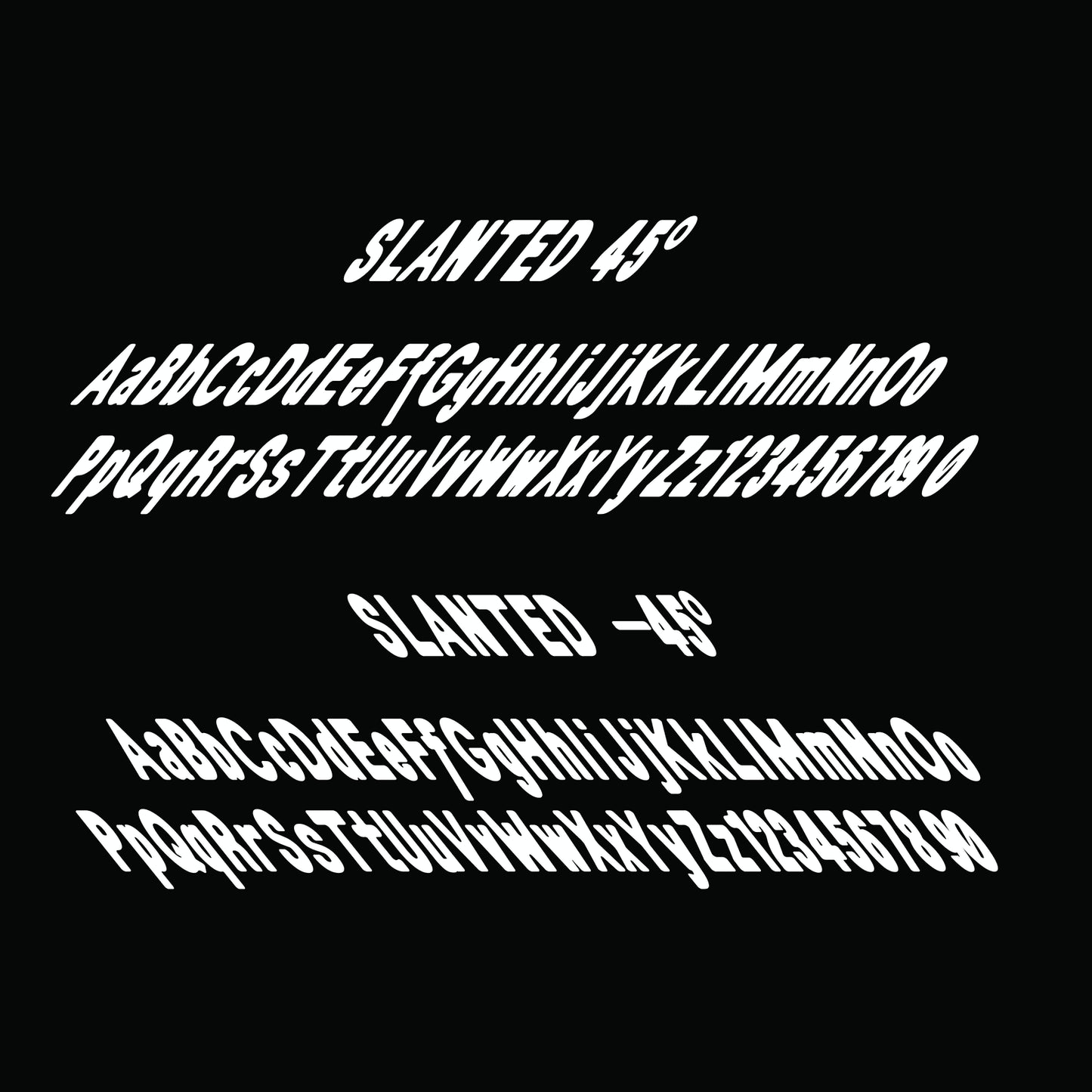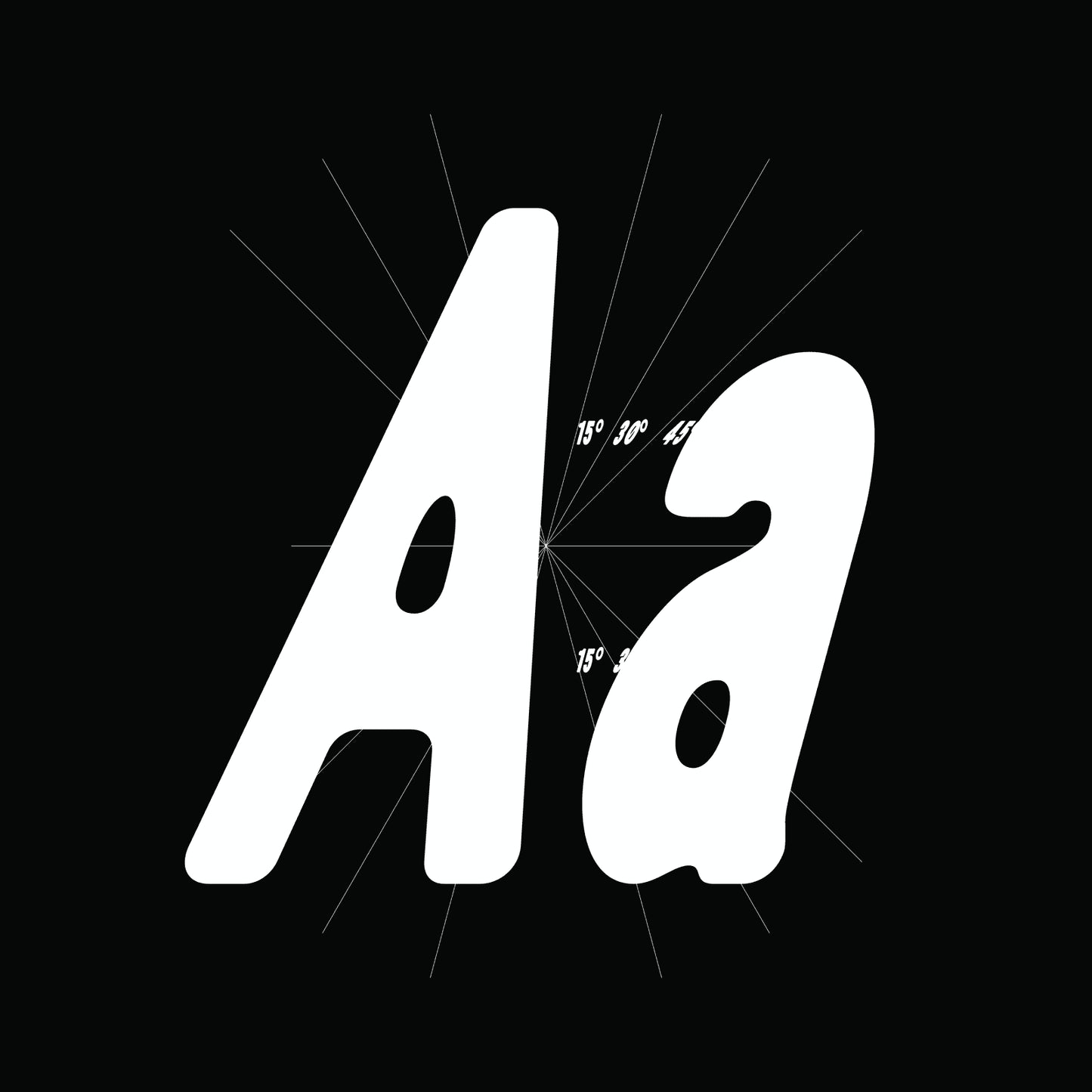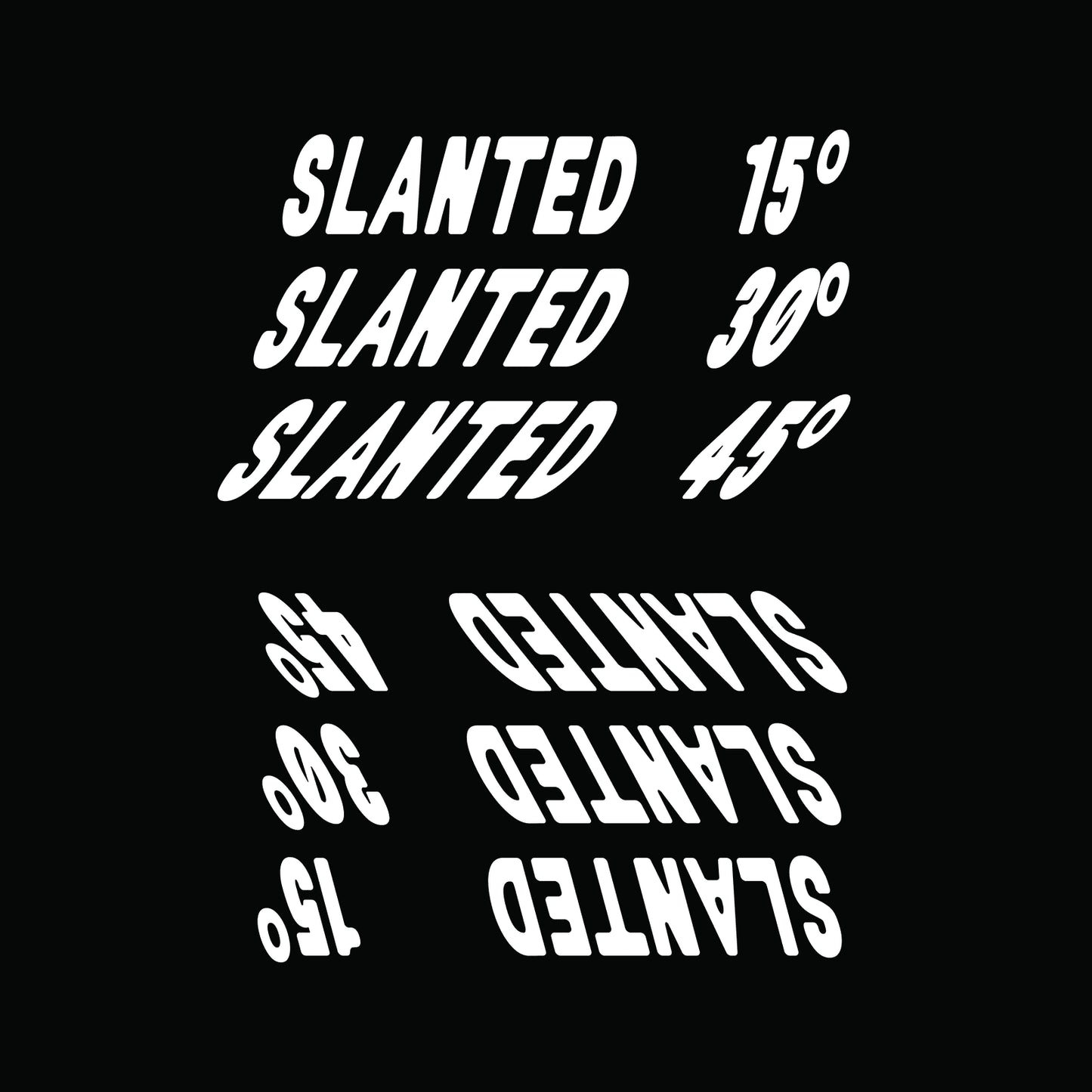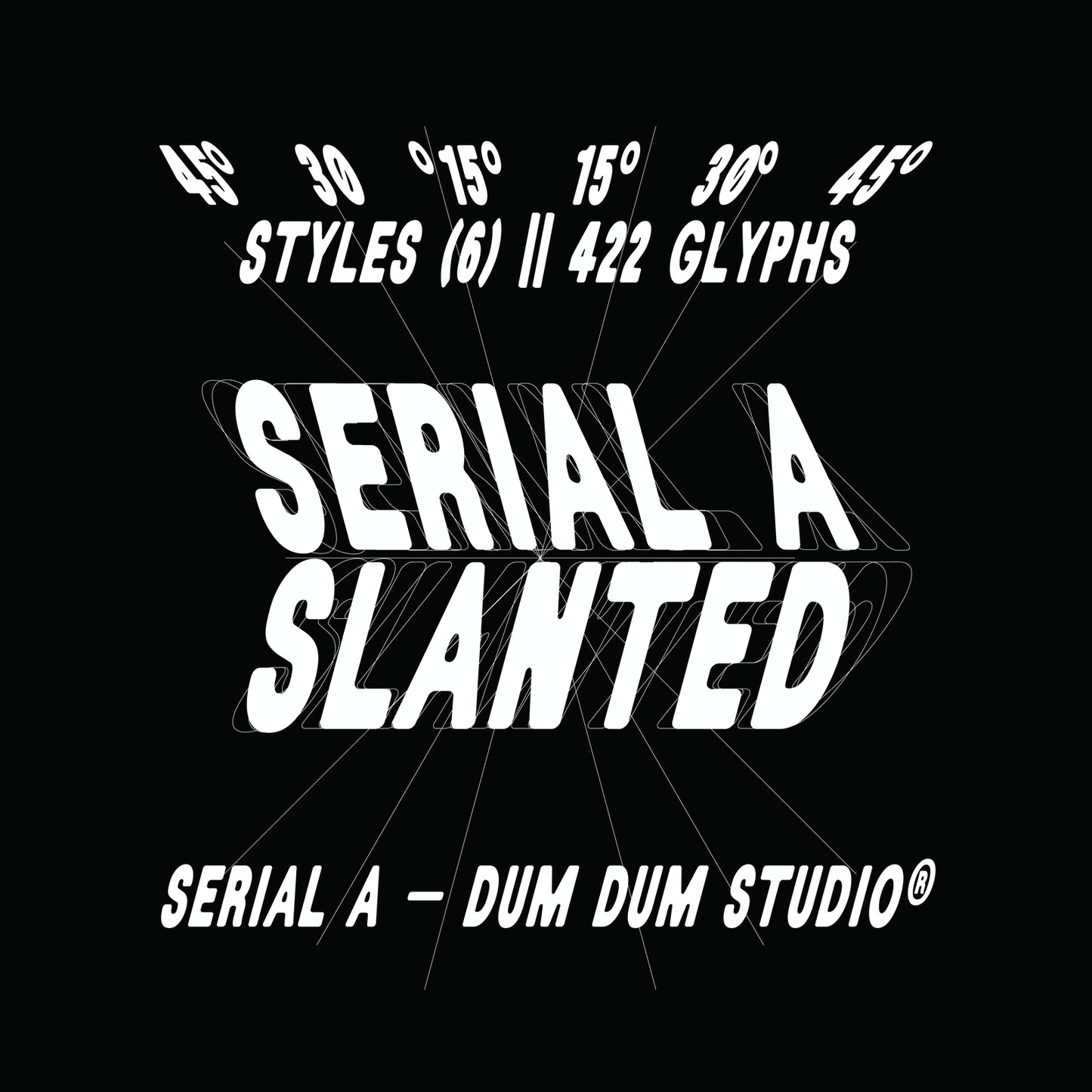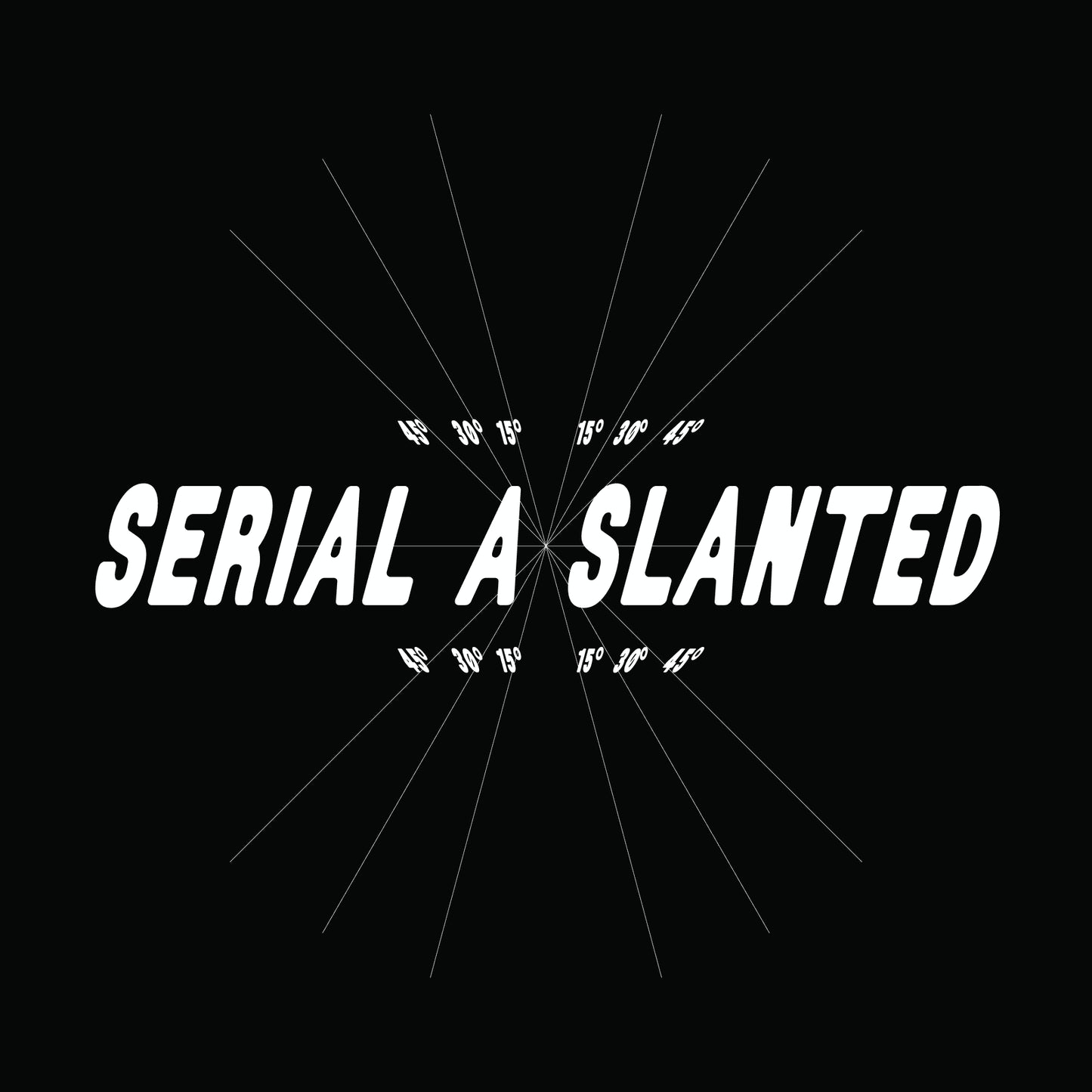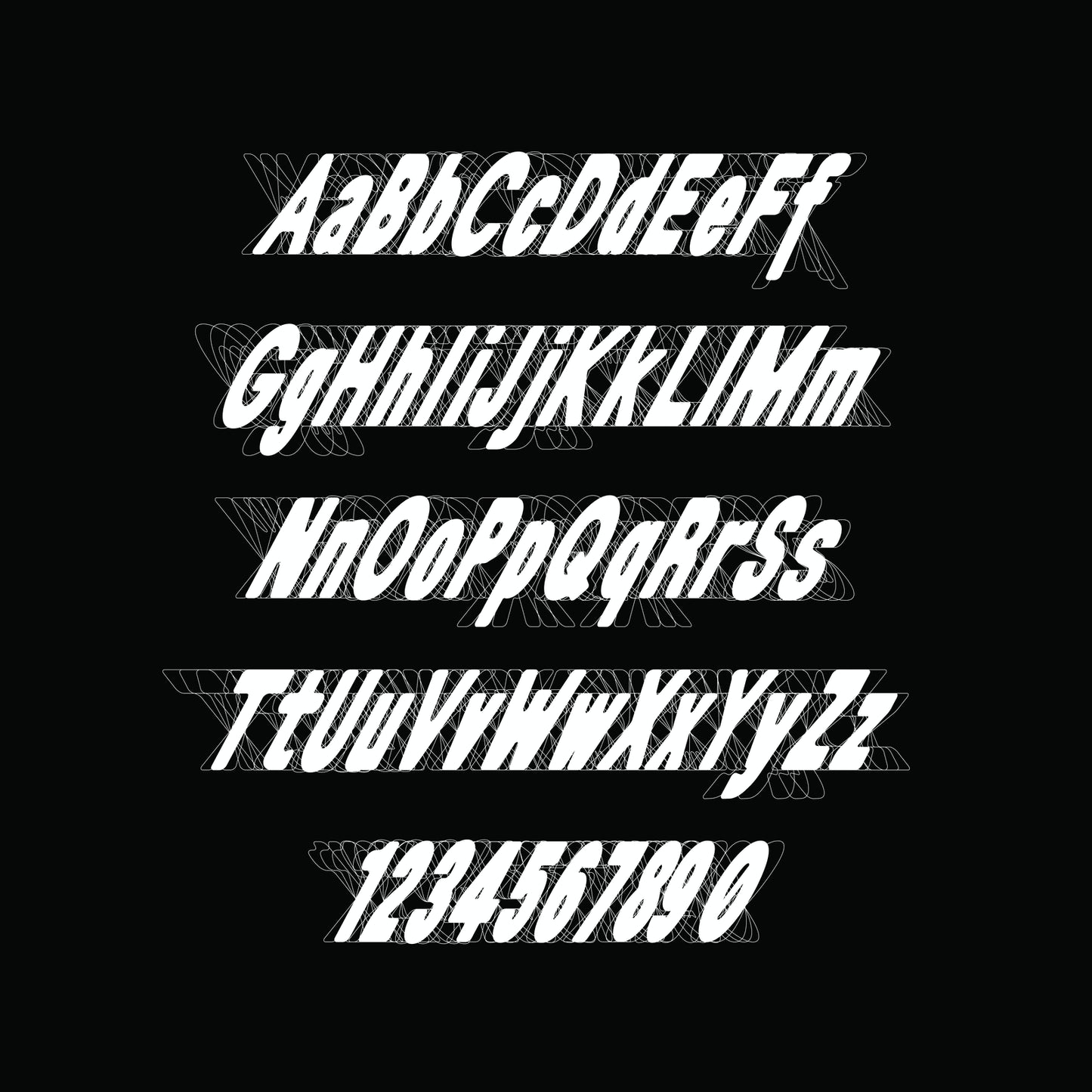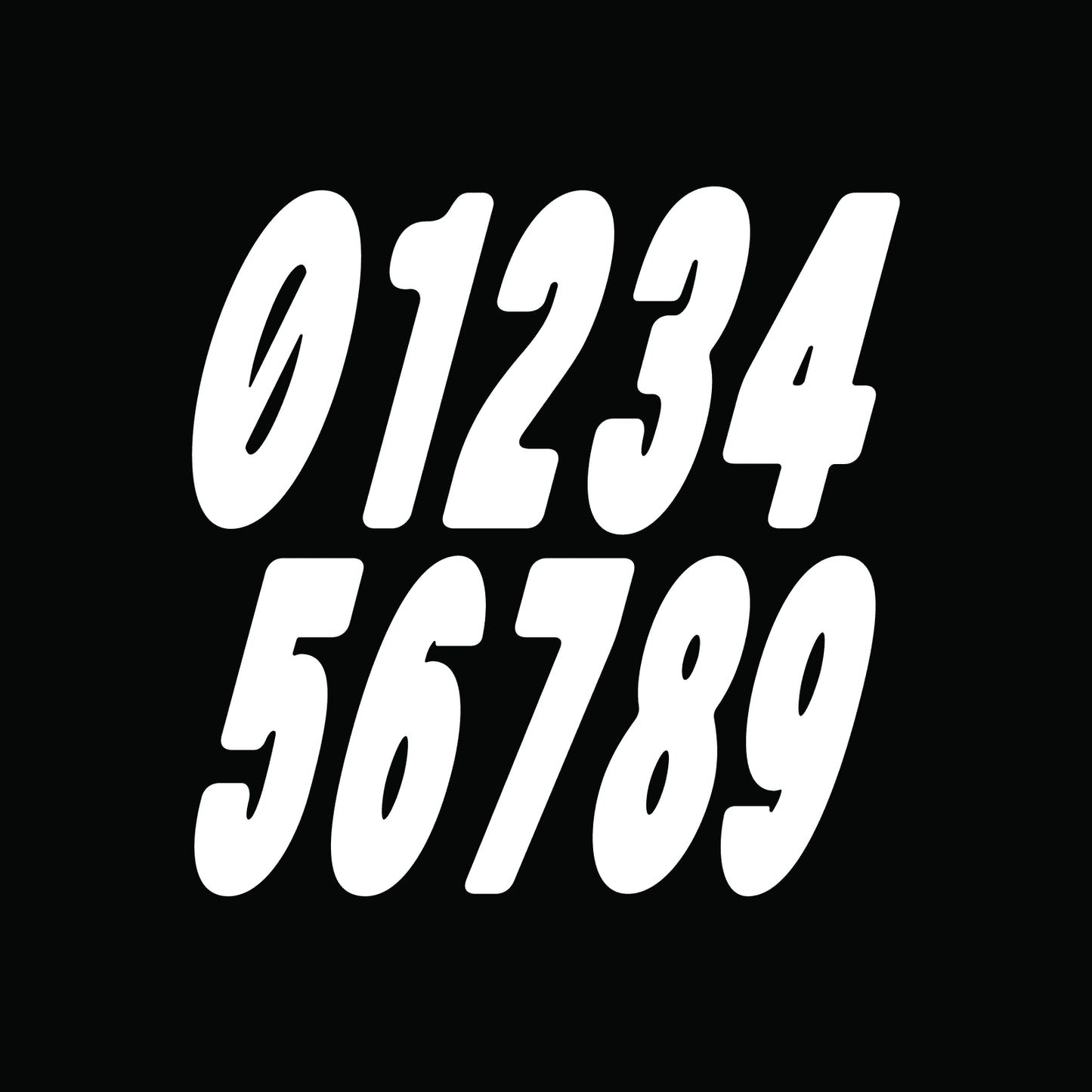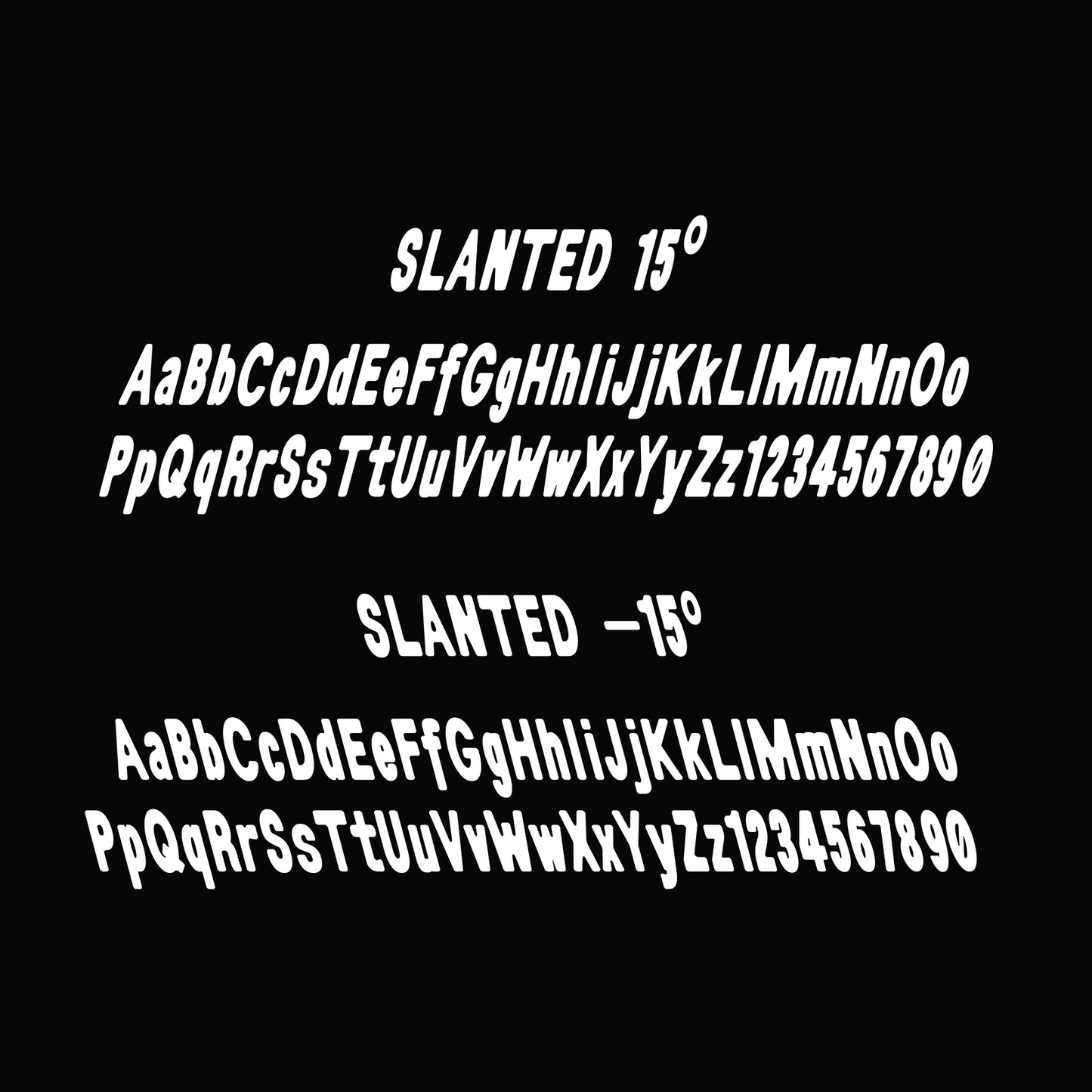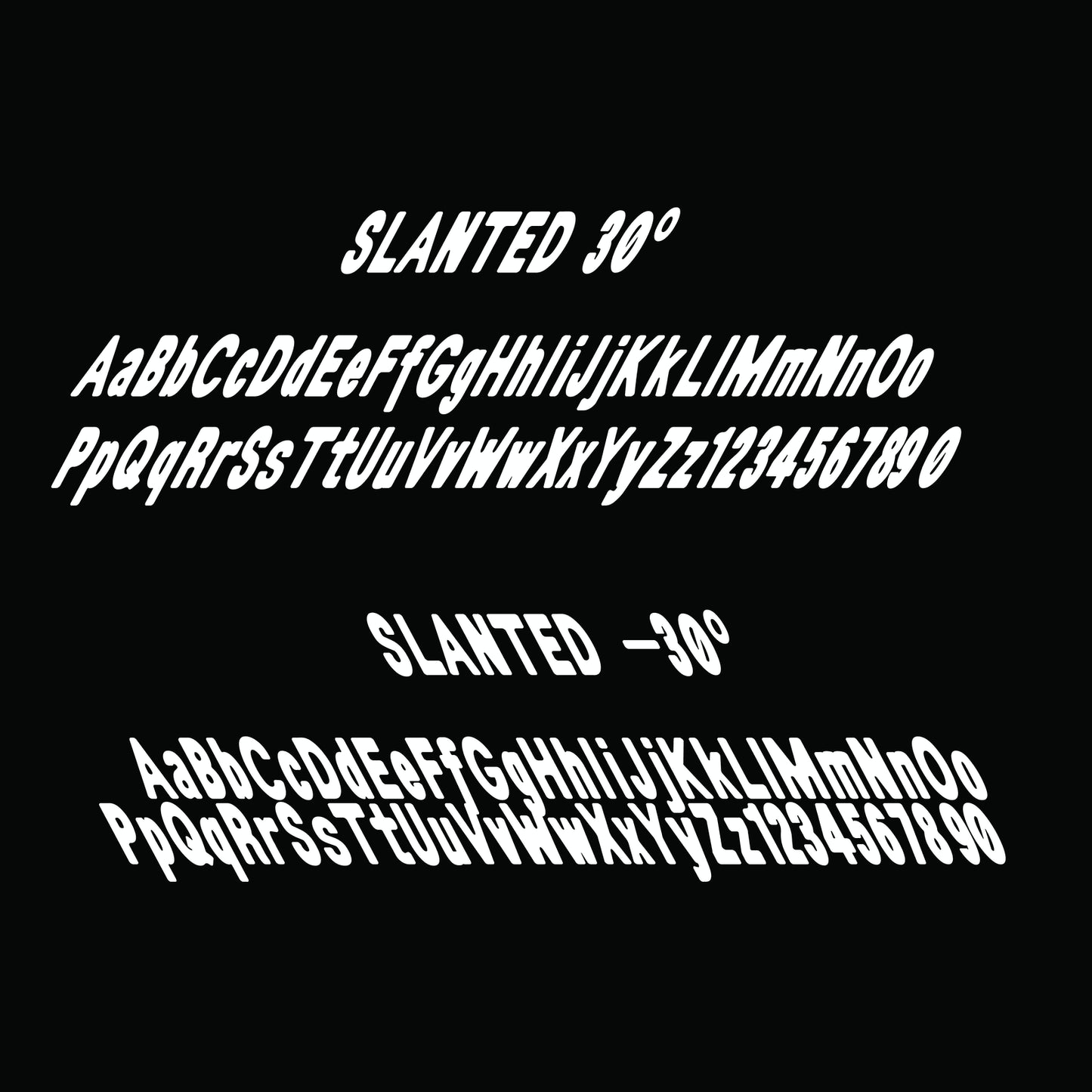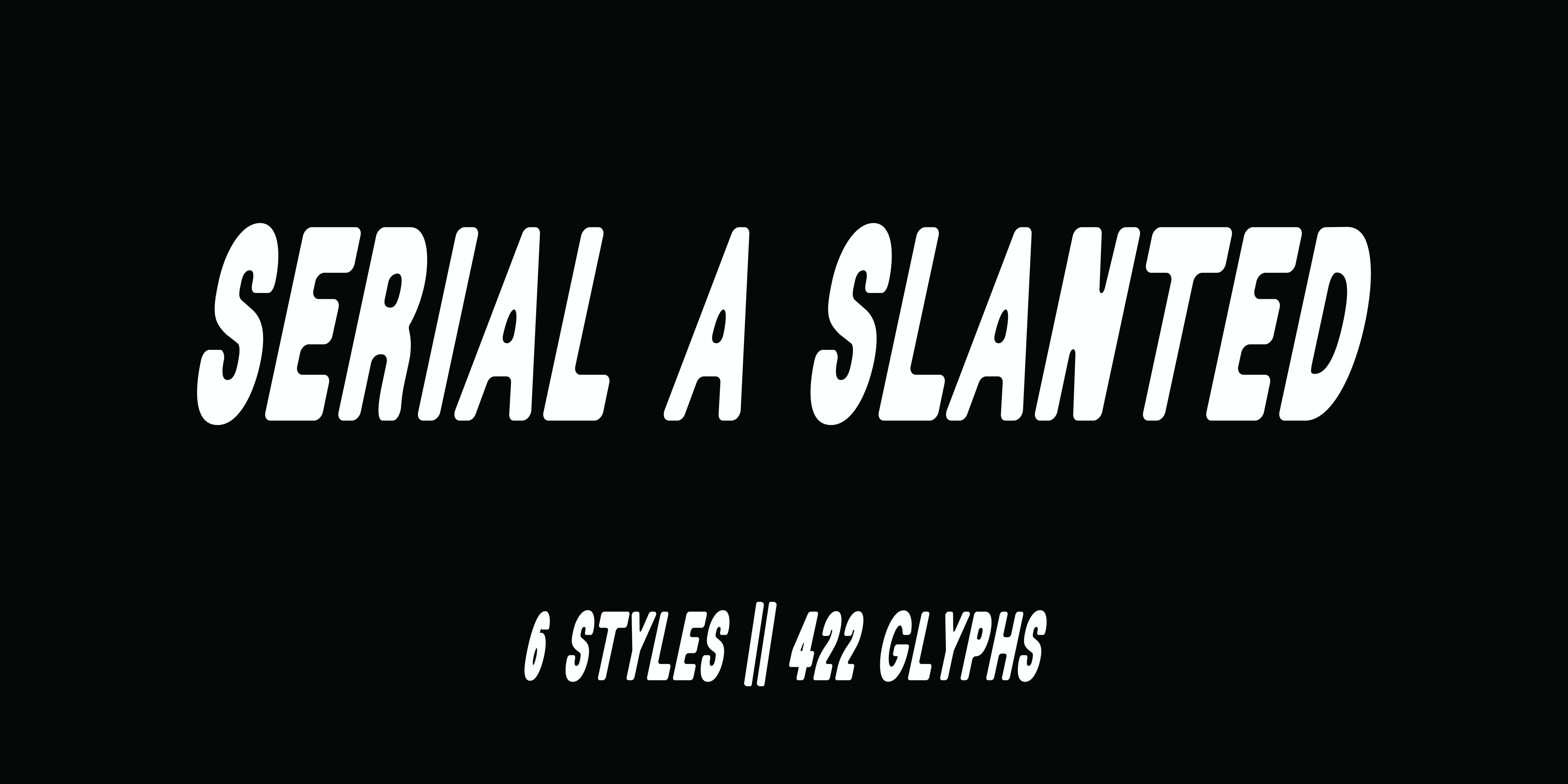
Serial A Slanted
Mario Julian Gutierrez
Serial A is a bold and contemporary typeface, characterised by its highly compressed and thick letterforms. It is ideal for titles, creating a strong impact and capturing attention at any size.
Serial A Slanted is a typeface slanted from (-45°) to 45°, creating dynamic movement and distortion.
— 6 STYLES
— TOTAL GLYPHS: 422 GLYPHS
— (O DEGREE NOT INCLUDED = SERIAL A)
— LIGATURES
— ALTERNATES AND SUBSTITUTES